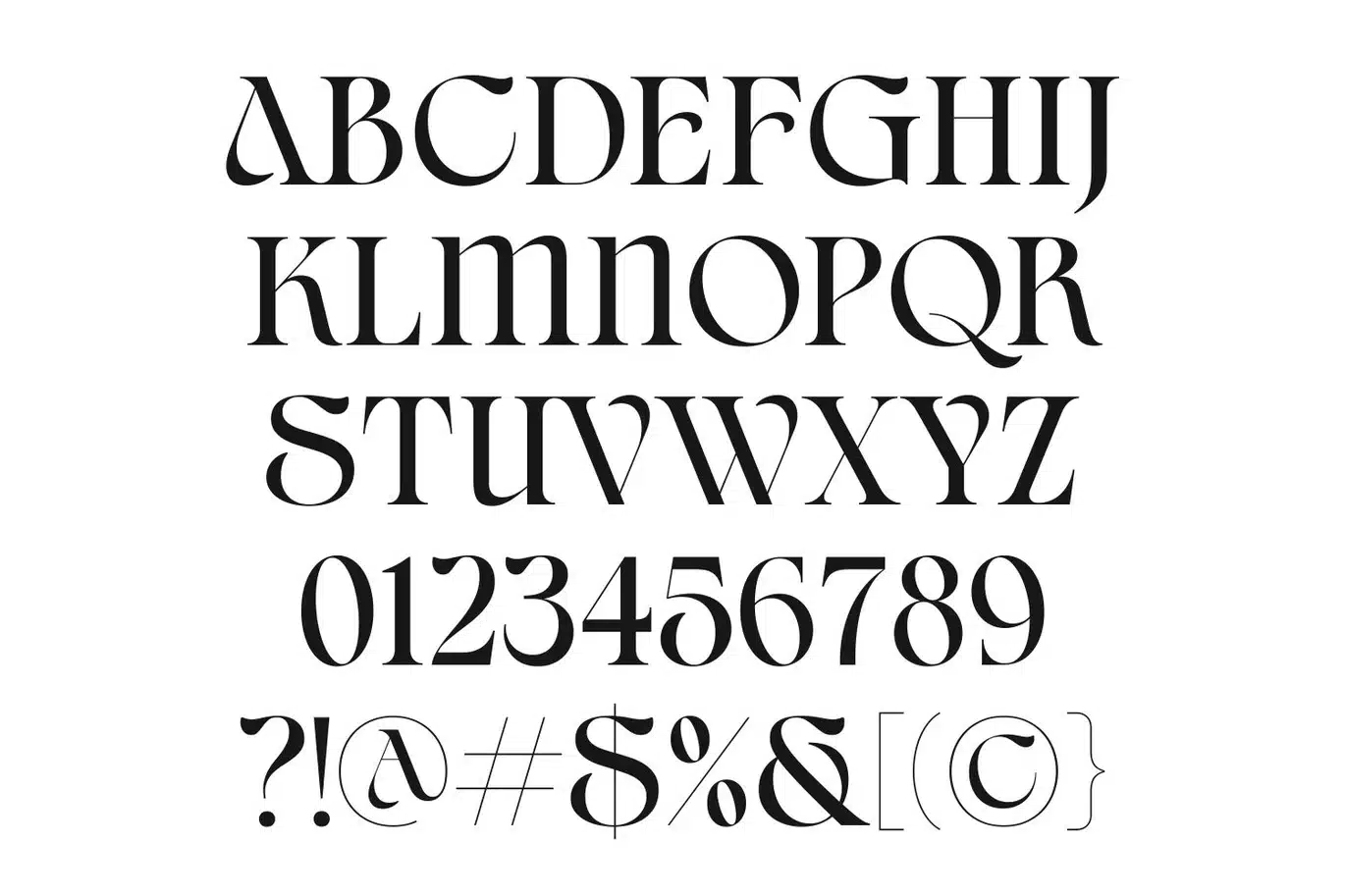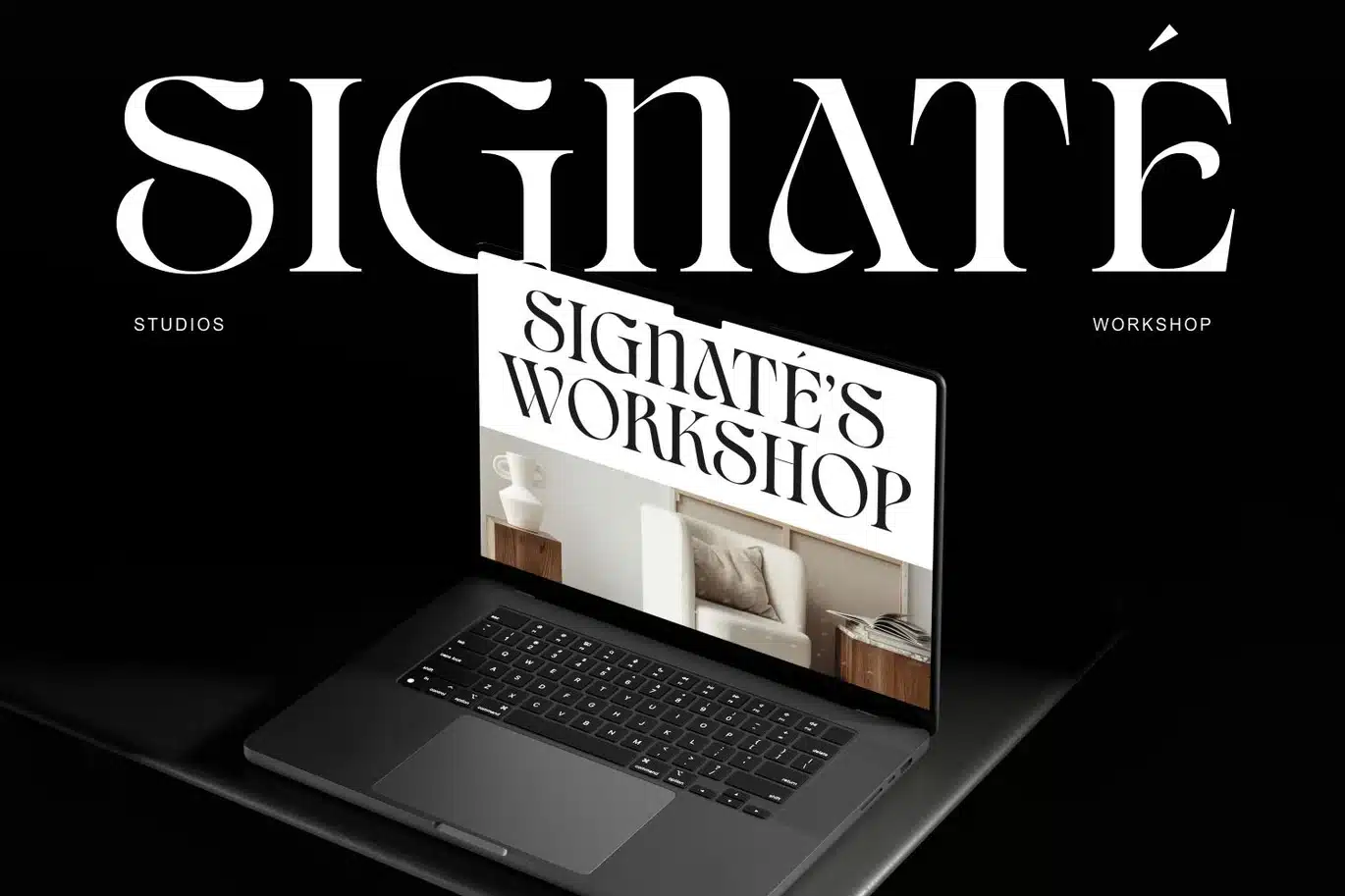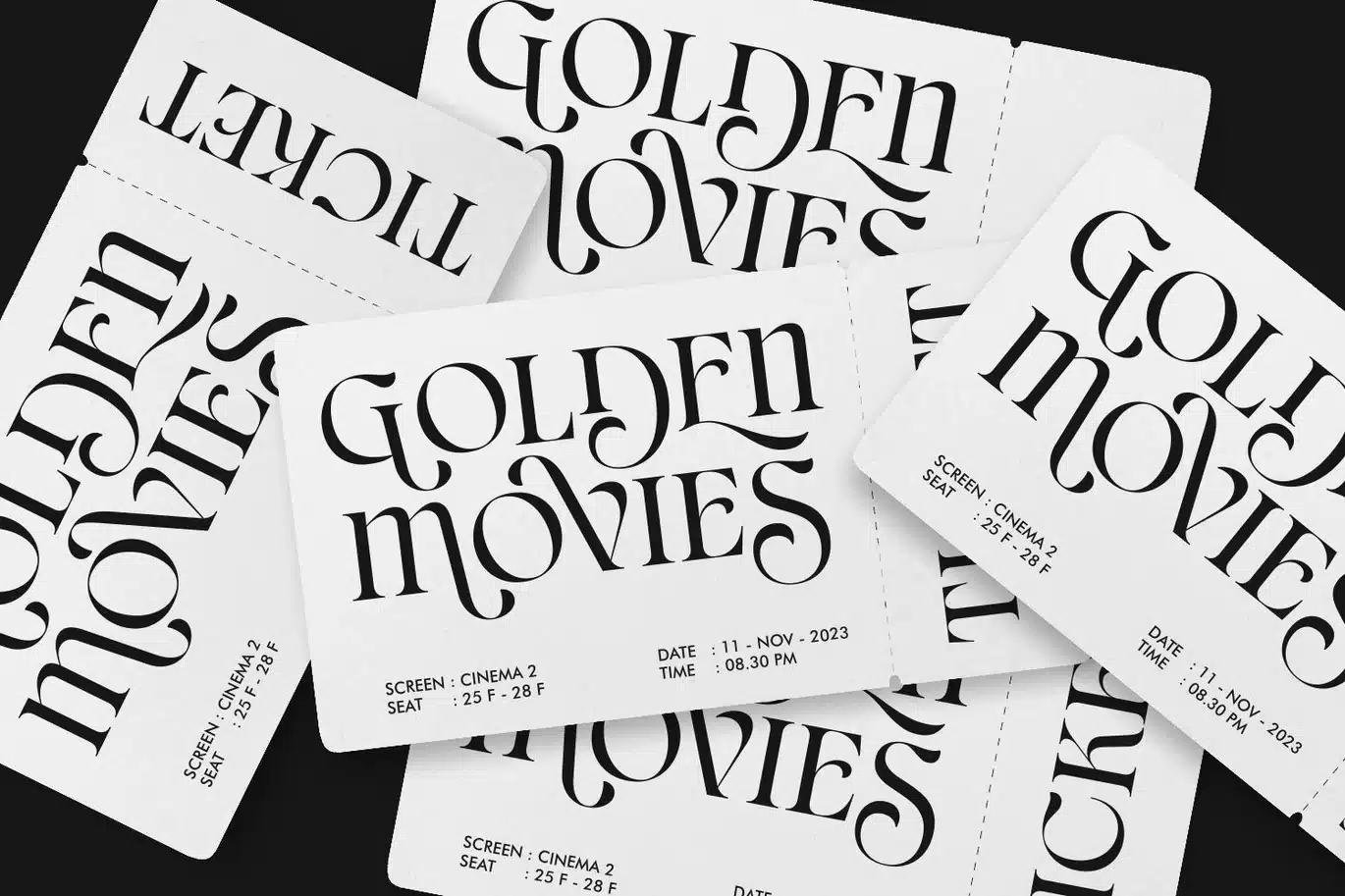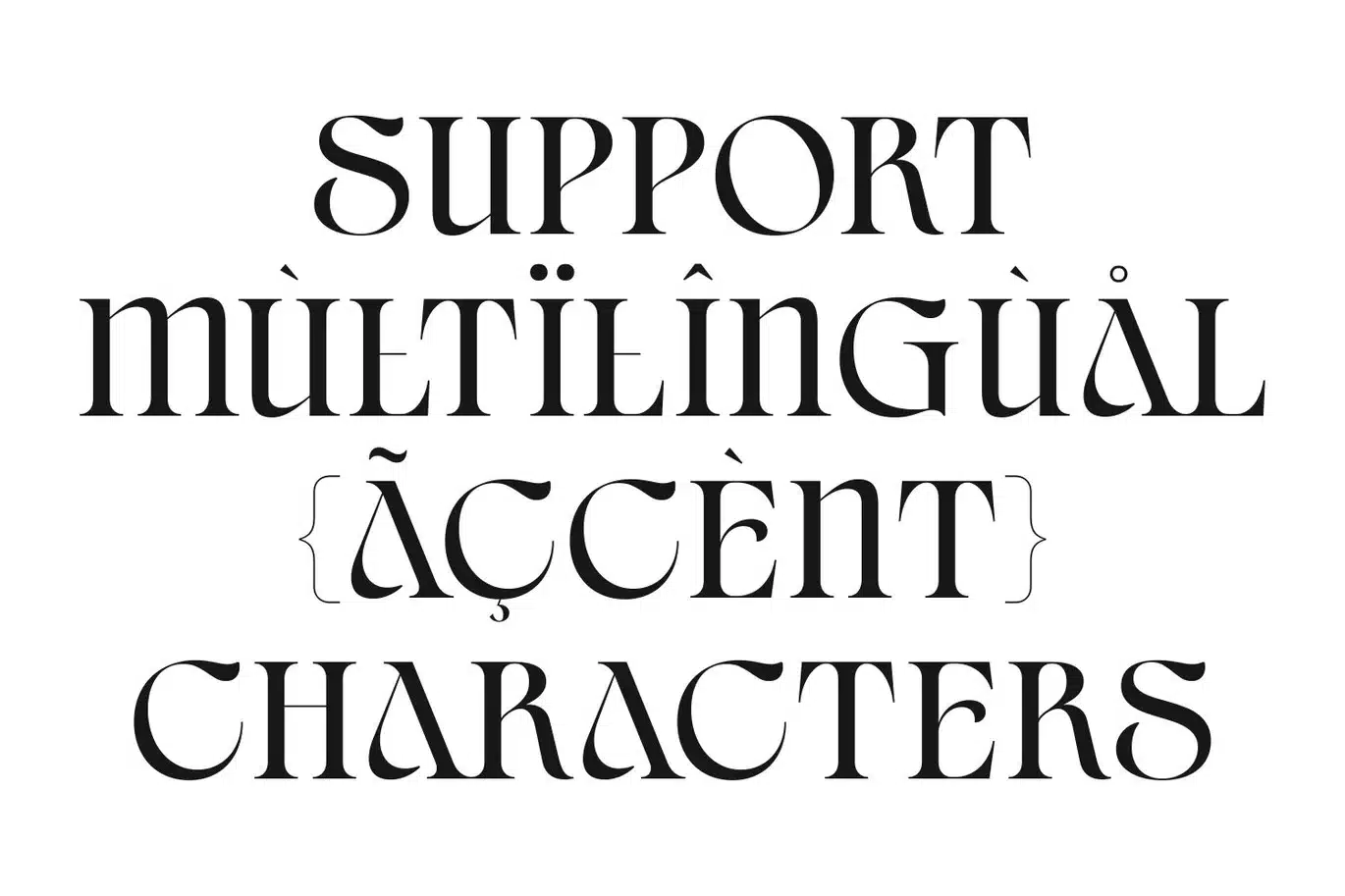
Civons – Elegant Modern Serif Logo Fonts
Civons is an elegant modern serif typeface that blends timeless sophistication with a fresh contemporary style. Designed with high contrast and smooth curves, Civons captures the balance between classic beauty and modern minimalism — making it perfect for editorial layouts, branding identities, fashion logos, and luxury packaging. Its graceful serifs and refined proportions make every word look polished and exclusive. Ideal for magazines, wedding invitations, design portfolios, and boutique products, this font brings an elevated sense of style to any project. It comes complete with uppercase and lowercase letters, punctuation, multilingual support, and both OTF, TTF, and WOFF formats for versatile use across print and digital media. Whether you’re creating a brand for a high-end product, crafting elegant editorial titles, or designing minimal modern posters, Civons delivers sophistication and visual harmony in every detail.